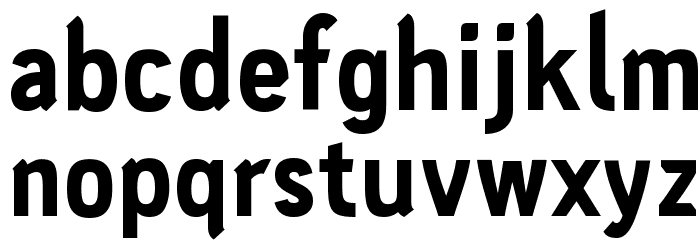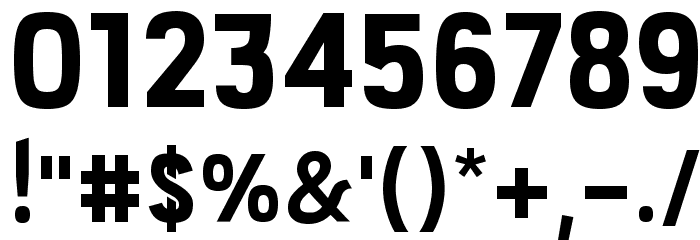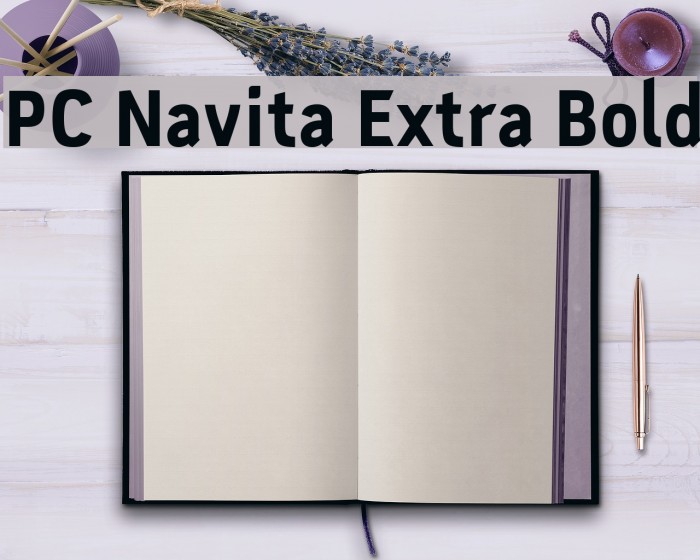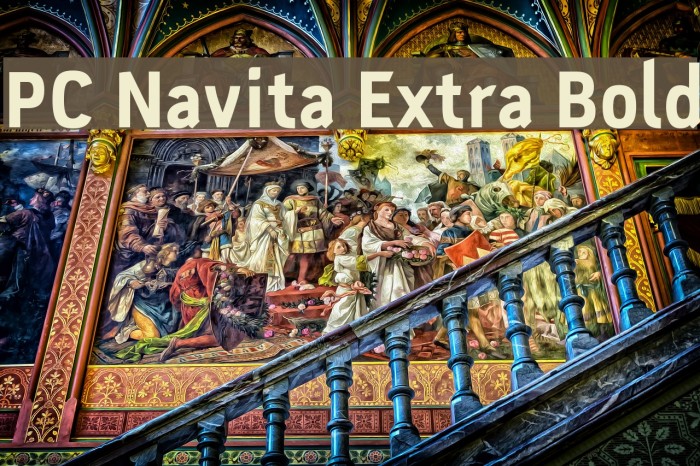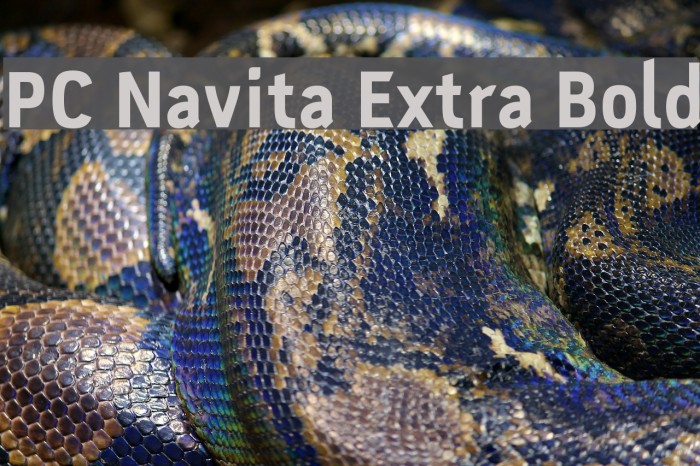
PC Navita Extra Bold Font
This font features a bold and robust design, characterized by its thick strokes and strong presence. The uppercase letters are uniform in height, with a slightly condensed appearance that enhances its boldness. The lowercase letters maintain a consistent style, with rounded edges that add a touch of softness to the overall bold aesthetic. The numerals are clear and legible, matching the weight and style of the alphabetic characters. Special characters are well-defined, ensuring readability and versatility across various applications. This font is ideal for making a strong visual impact.
A bold, robust font with thick strokes and a slightly condensed style.
- Proposed Projects: Ideal for headlines, posters, branding, and any project requiring a strong visual impact.